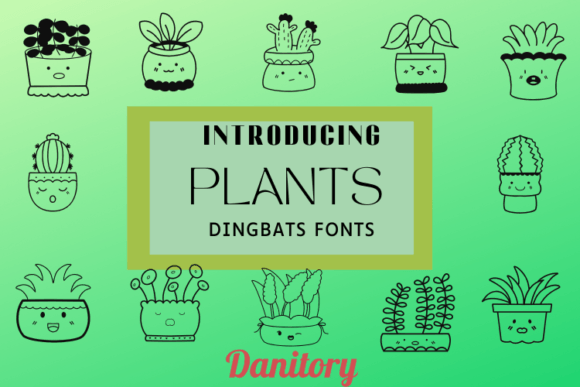
Looking for the perfect font to add a touch of whimsy to your next project? Look no further than Plants Font, the latest addition to our collection of Best Fonts For Tshirt Design. Created by danita.kukkai, this cute and beautiful dingbats font features an adorable collection of tiny plants in pots, making it the ideal choice for those looking to add a touch of charm to their designs.
With its delicate and intricate designs, Plants Font is sure to capture the hearts of all who see it. Its whimsical style is perfect for adding a playful and fun touch to your projects, whether you're working on bullet journaling, scrapbooking, invitations, or any other creative endeavor.
Each character of Plants Font has been lovingly crafted to bring out its unique charm and character, ensuring that every project you create with this font will be truly one-of-a-kind. And with its keyword-rich description and captivating appeal, Plants Font is the perfect choice for those looking to elevate their design game and create truly stunning pieces that stand out from the crowd.